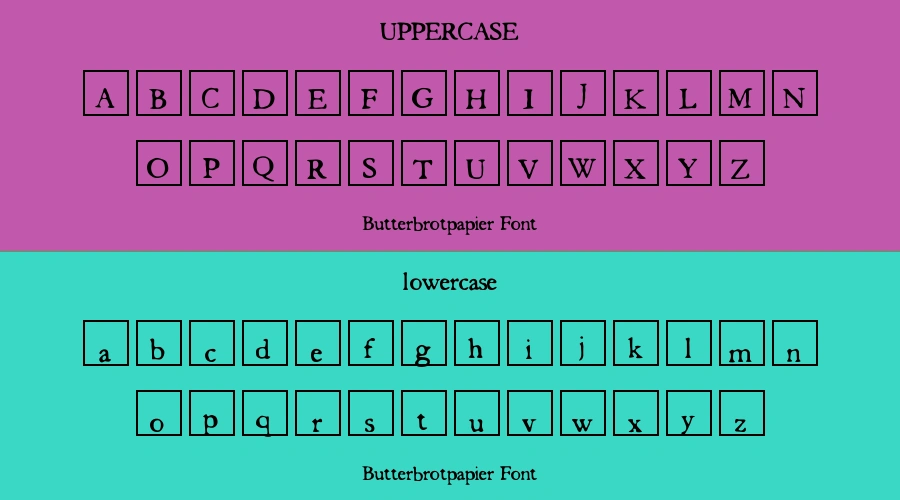
About Butterbrotpapier Font
Butterbrotpapier Font represents a sophisticated approach to type design, balancing tapered strokes with consistency. Perfect for event branding, this font family showcases impressive memorability and market appeal throughout its character set. Designers appreciate its versatility and reliability.
Designers will appreciate nuanced touches including convex bowls and historical accuracy, adding sophistication to any project. These features become apparent in running text, where special effects matters most. The careful treatment of joint construction and user perception ensures optimal performance.